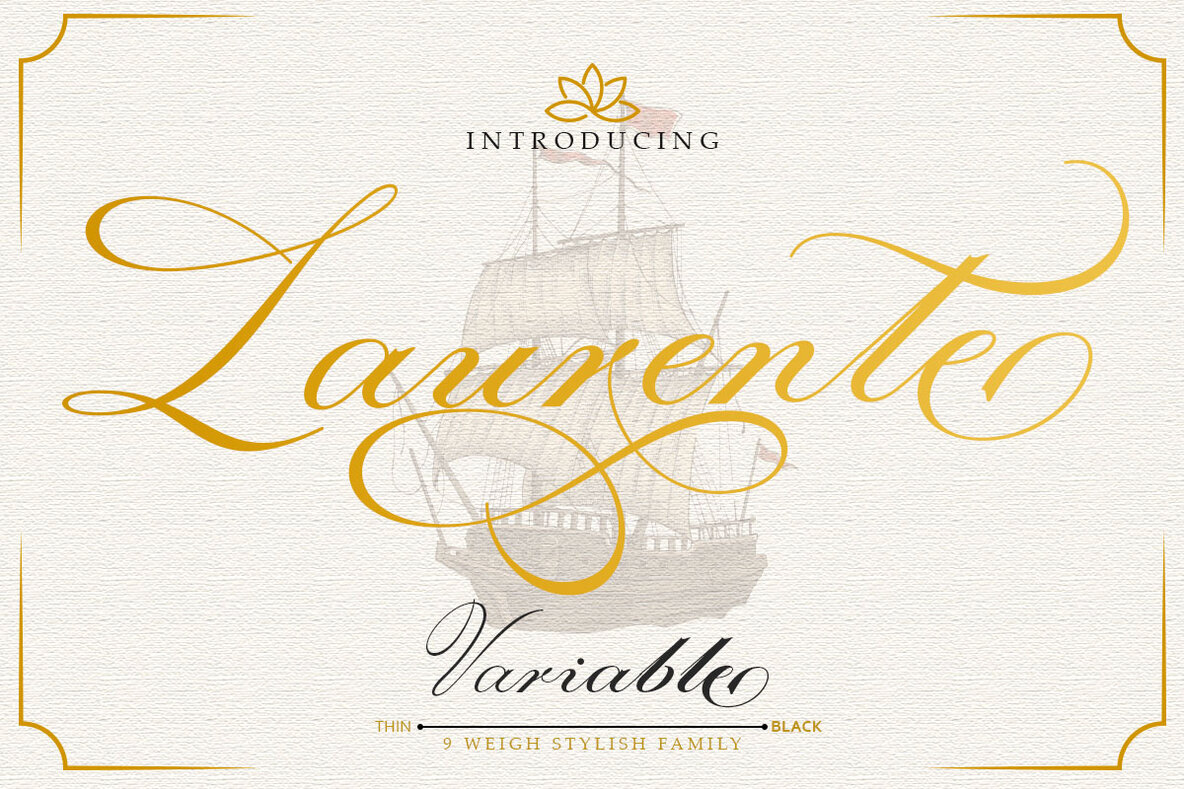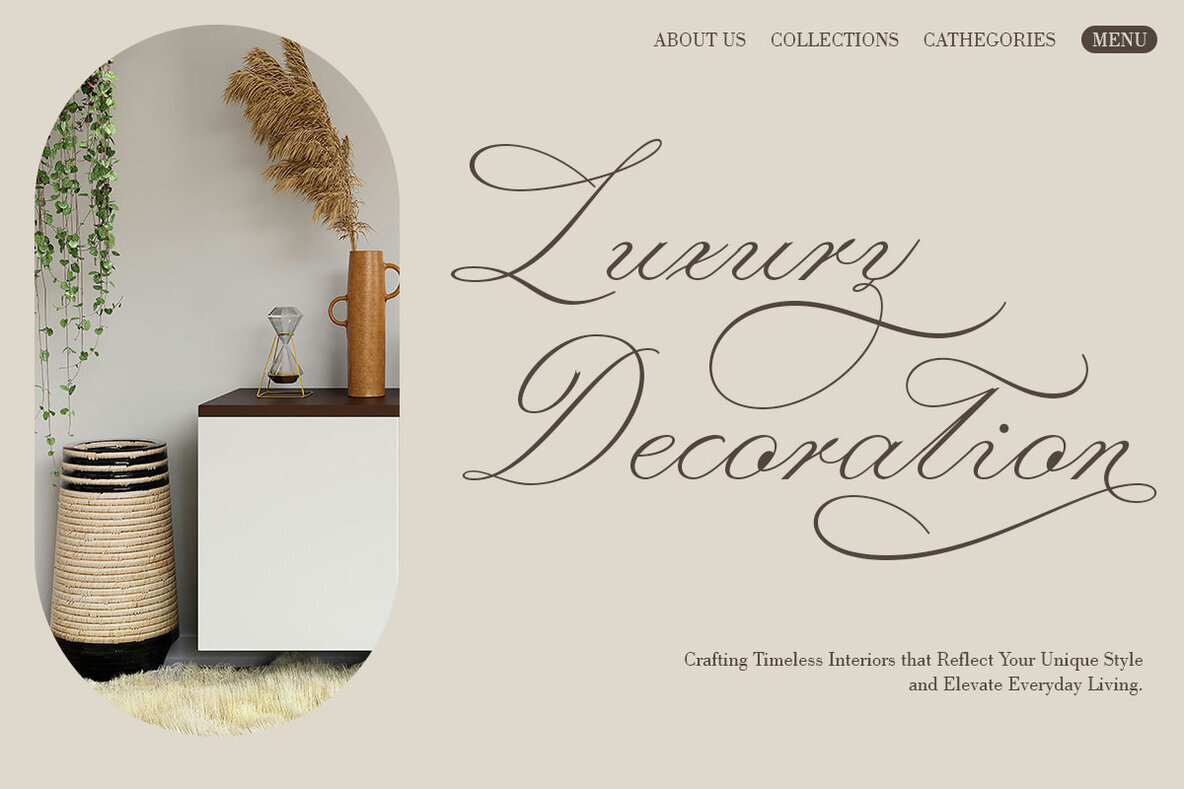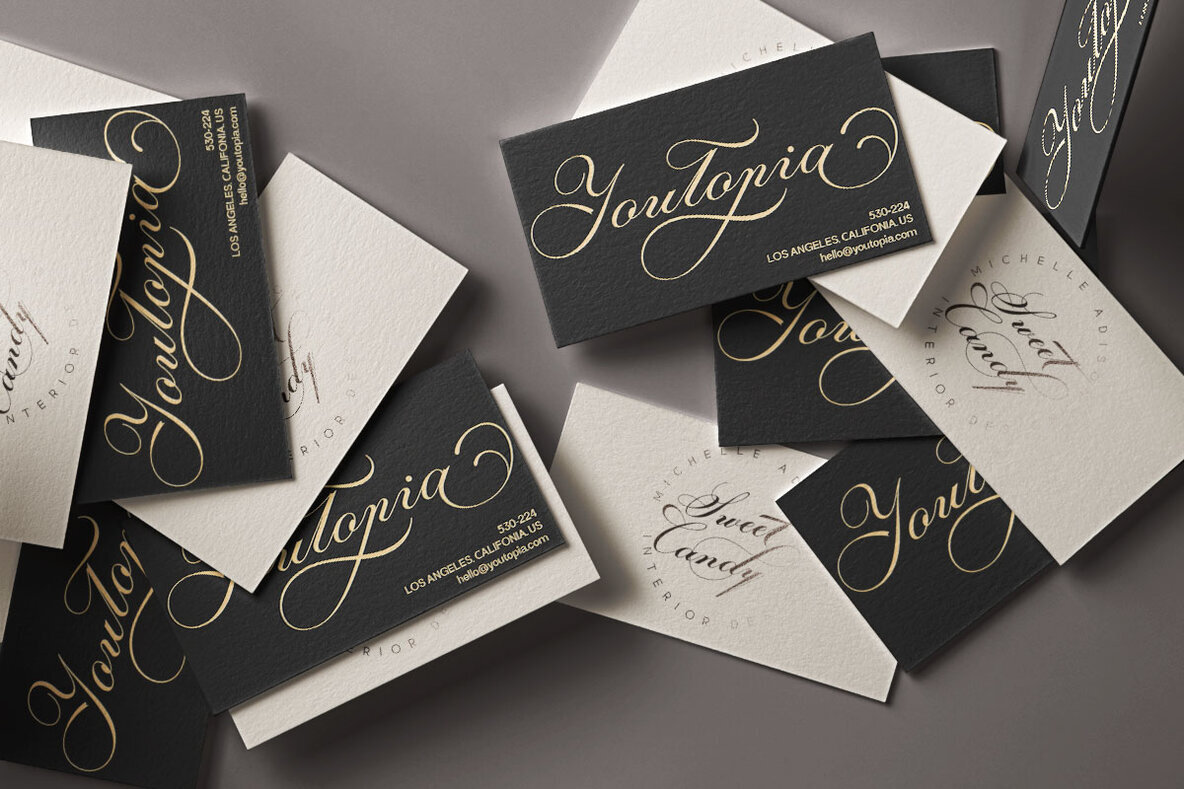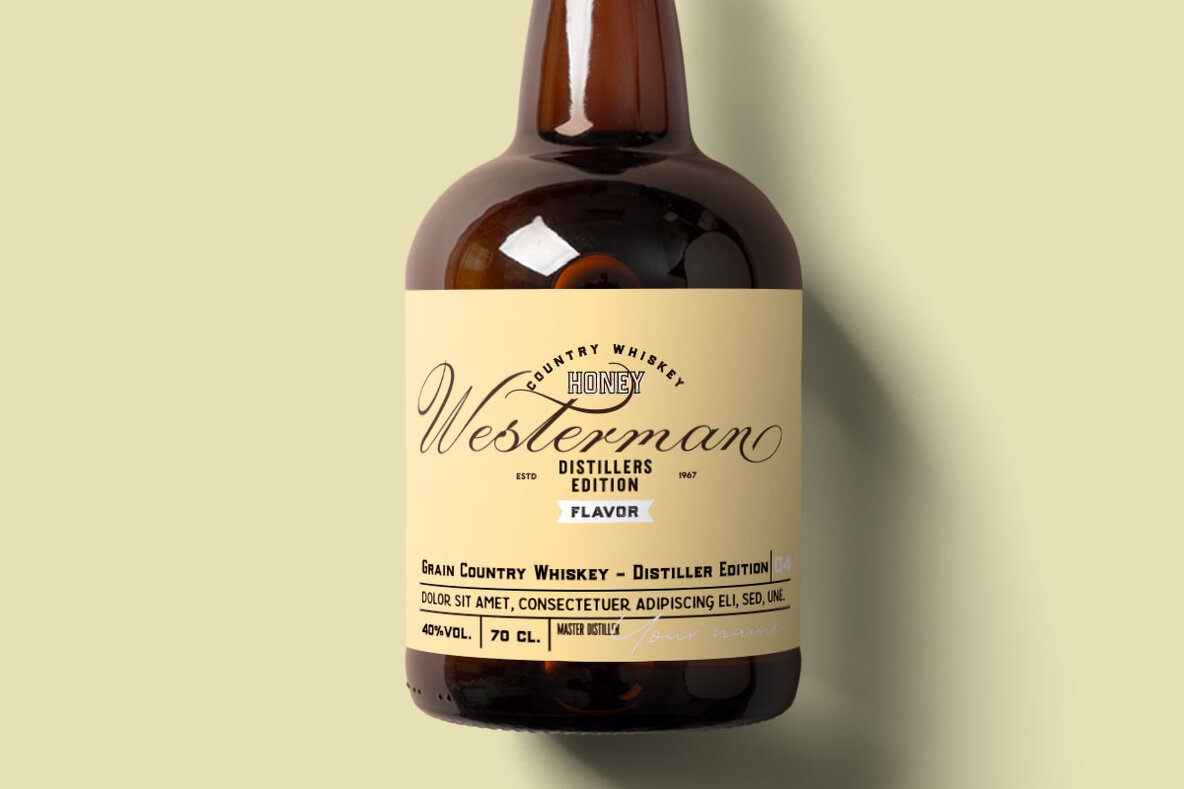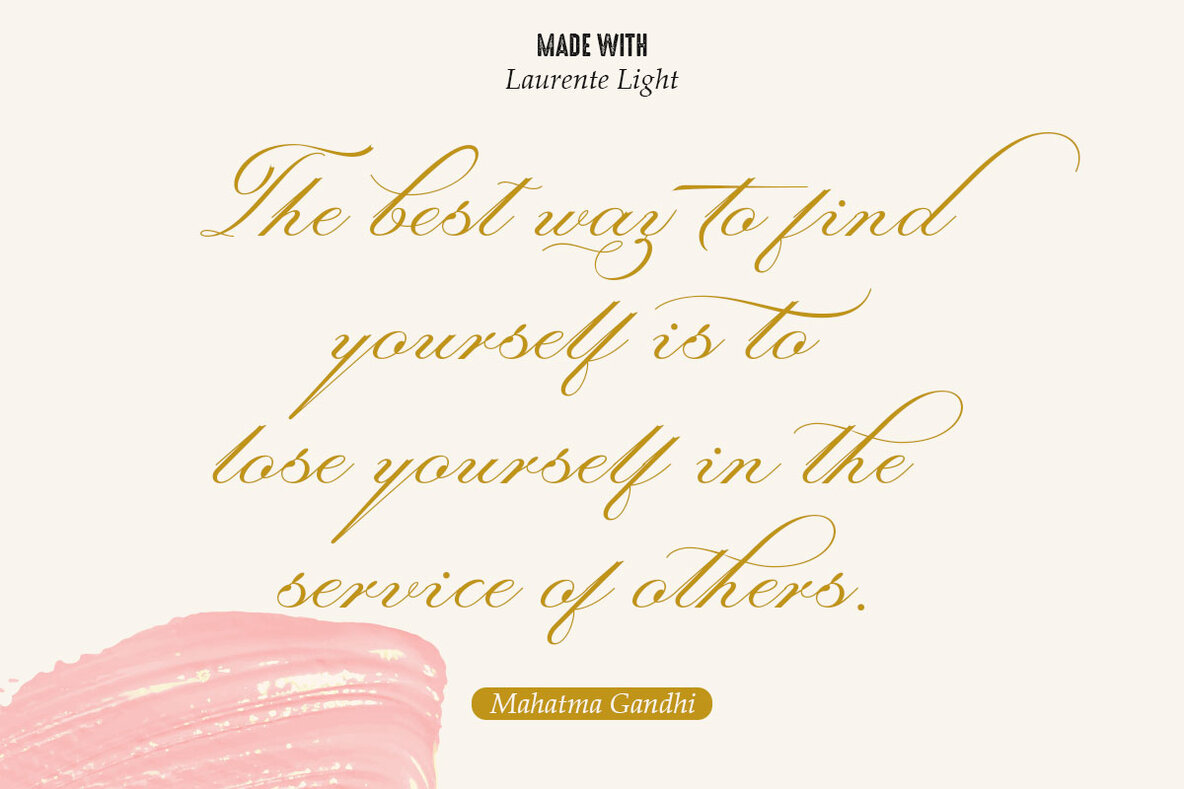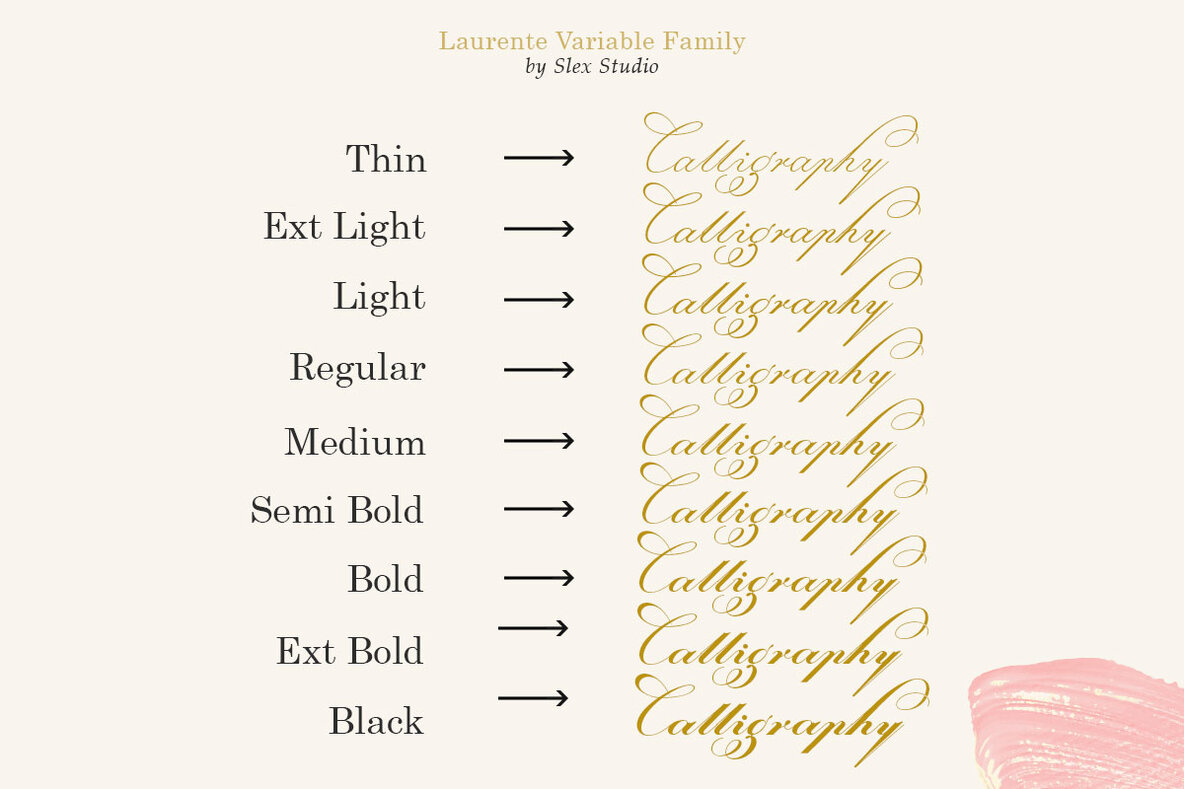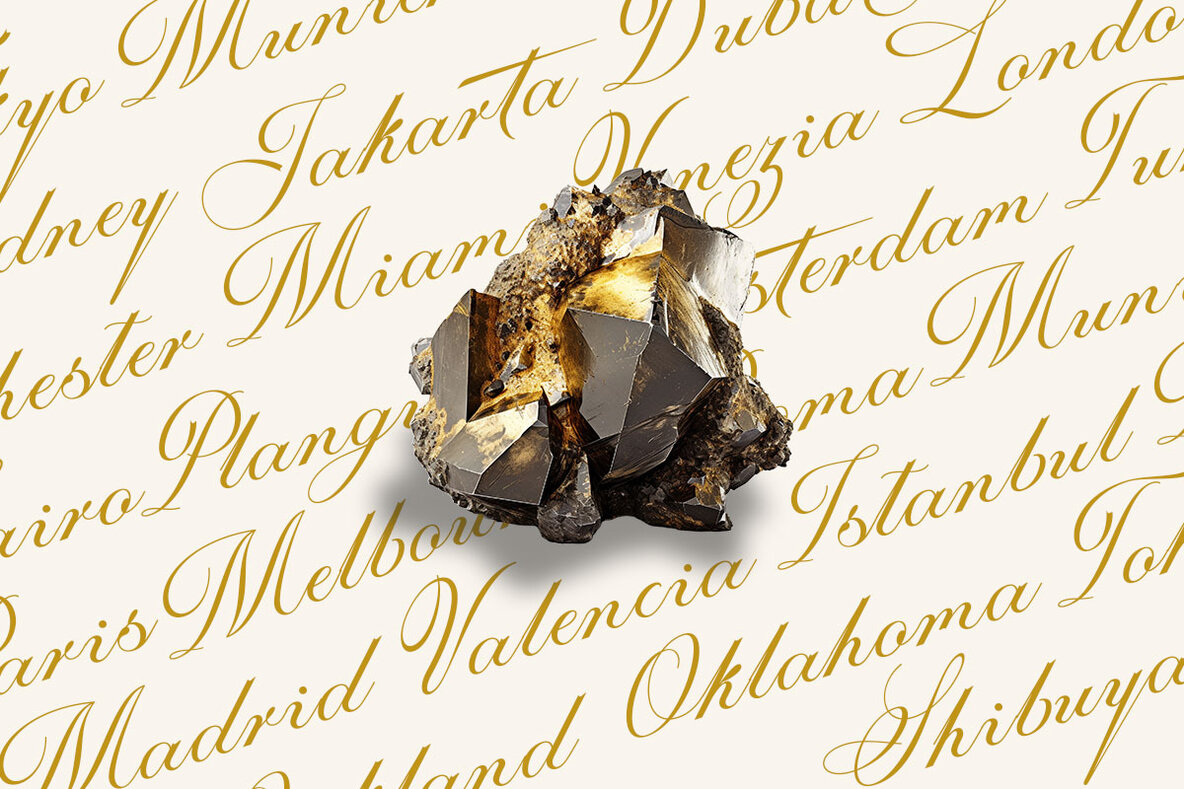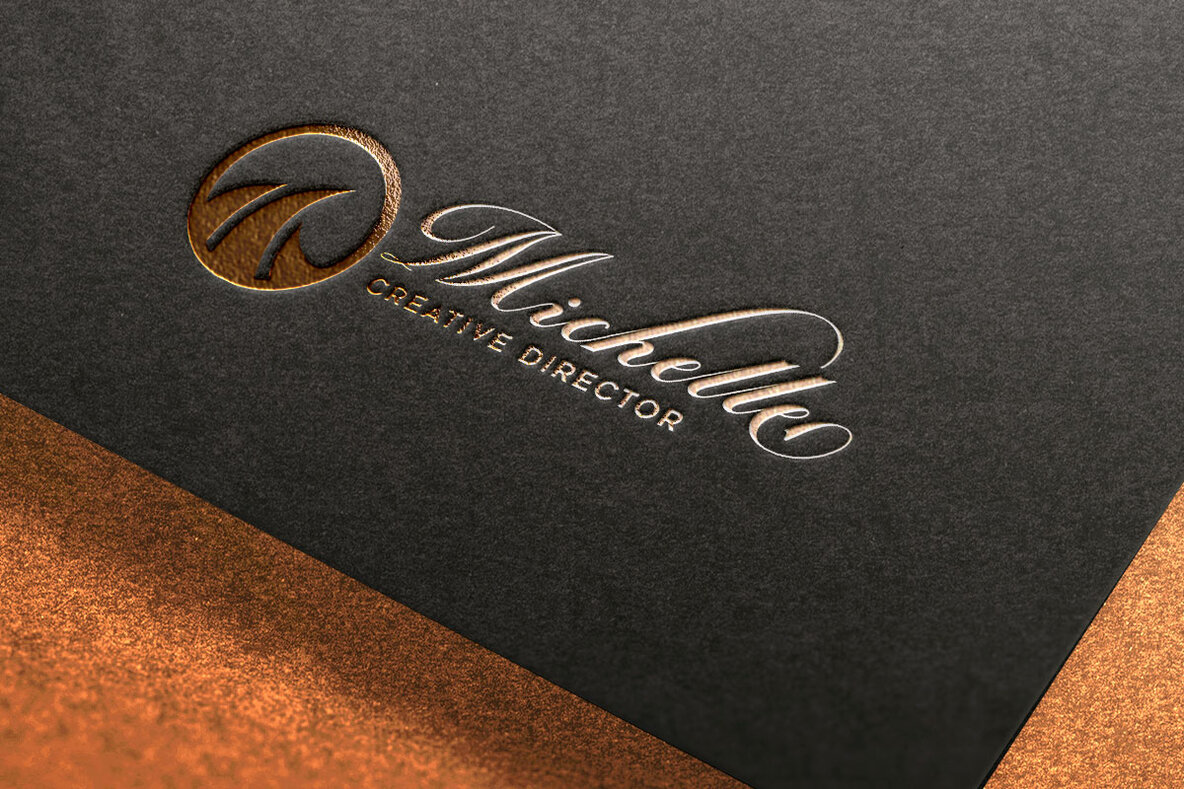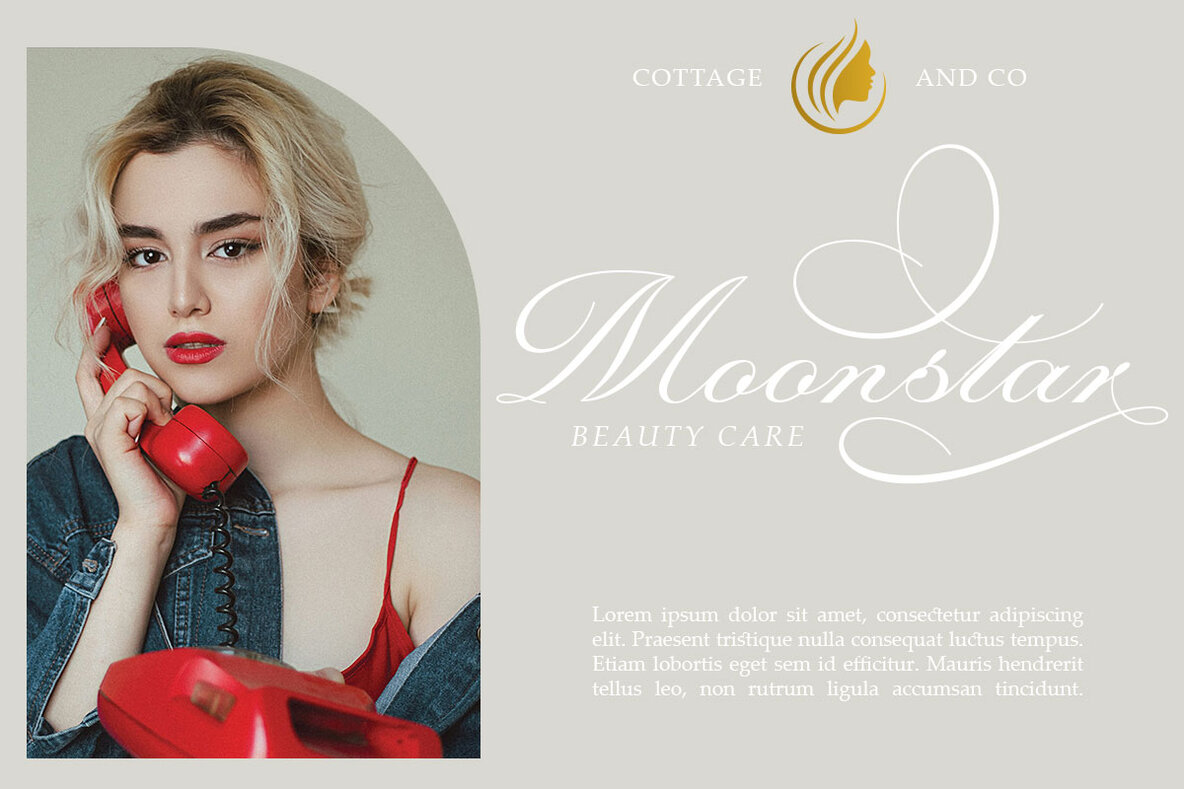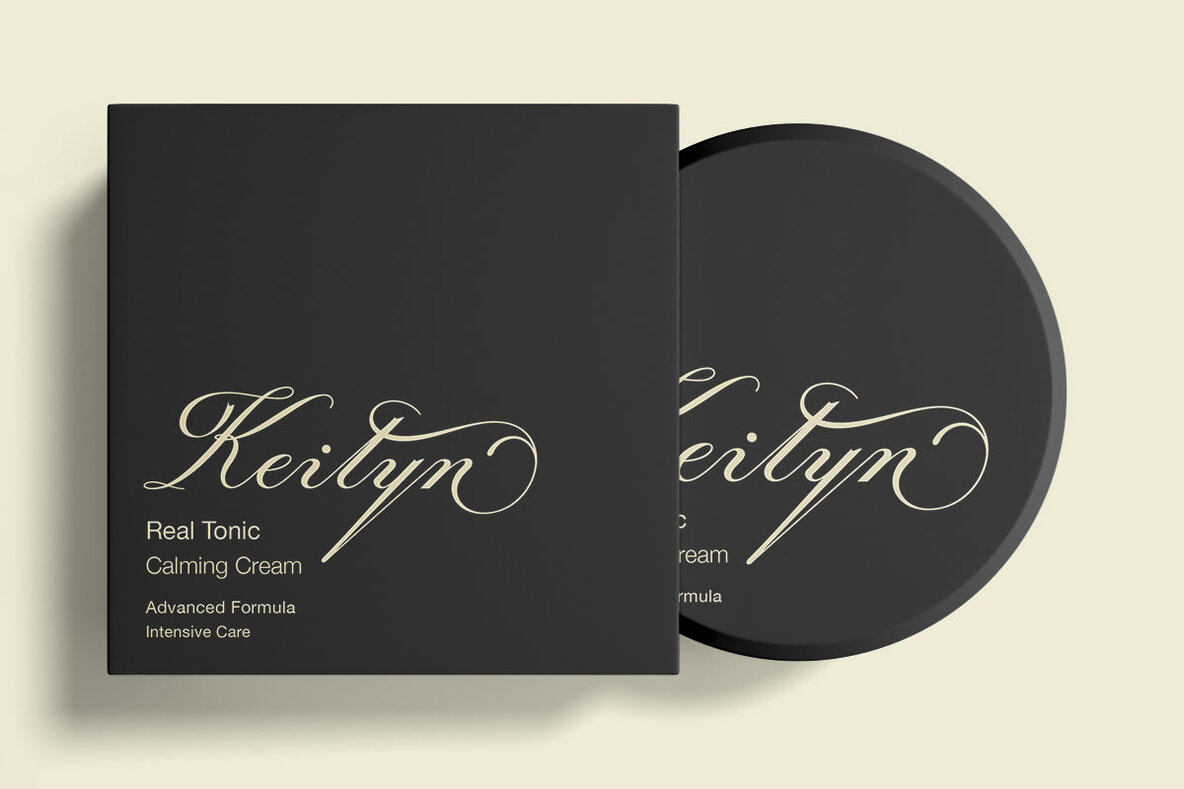
Laurente Font
Laurente Script Family Variable
"Laurente Font Family" is a family of letters designed in a modern and elegant style. This font has attractive and versatile characteristics, making it suitable for various design purposes, from logo designs, titles, to small text. With balanced proportions, clear layouts, and subtle details, the Laurente Font Family gives a professional and neat impression to every design work. With a variety of styles and letter weights available, Laurente allows designers to experiment and create unique and interesting looks in their projects.